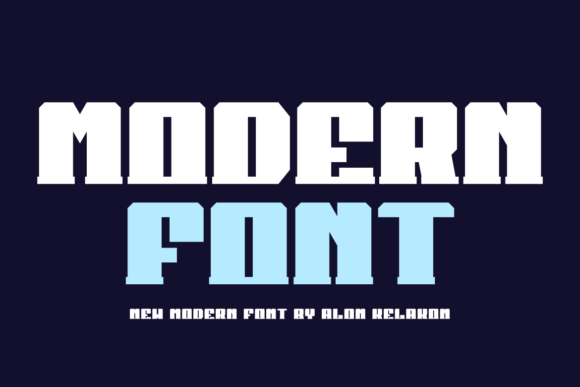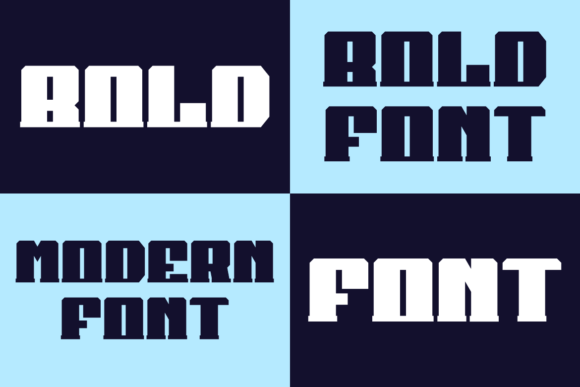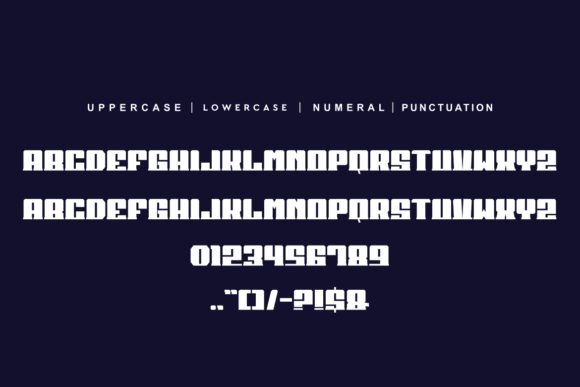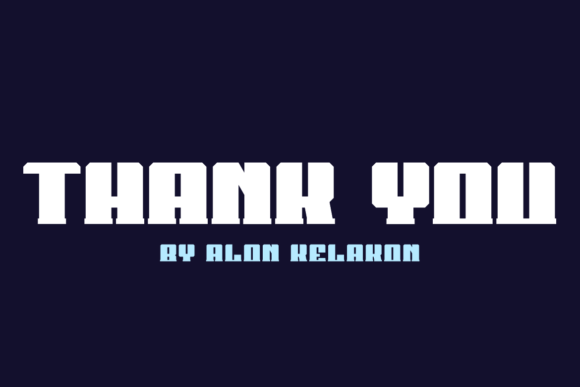
Unleash Your Creativity with Block Generic: The Ultimate Blocky Display Font
Are you a designer, craftsperson, or simply someone who loves to create? Look no further than Block Generic, a bold and striking display font that’s perfect for making a statement. With its strong, masculine character, Block Generic is ideal for headlines, gym posters, sports apparel, and any other project that requires a font with attitude.
The Power of Block Generic
Block Generic is more than just a font – it’s a design statement. Its blocky, rugged aesthetic is sure to grab attention and leave a lasting impression. Whether you’re creating a poster for a gym, designing a logo for a sports team, or simply looking for a font to add some edge to your craft project, Block Generic is the perfect choice.
Key Features of Block Generic
- Strong, masculine character: Block Generic exudes confidence and energy, making it perfect for projects that require a bold and daring aesthetic.
- Blocky display font: The font’s blocky design makes it highly legible, even at large sizes, ensuring that your message gets across loud and clear.
- Perfect for headlines and titles: Block Generic is designed to make a statement, making it ideal for headlines, titles, and other applications where you want to grab attention.
- Great for gym posters and sports apparel: The font’s strong, athletic aesthetic makes it a natural fit for gym posters, sports apparel, and other projects that require a bold and dynamic look.
Why Choose Block Generic?
With so many fonts to choose from, why should you choose Block Generic? Here are just a few reasons:
- Uniqueness: Block Generic stands out from the crowd, offering a fresh and unique alternative to more traditional fonts.
- Versatility: The font’s bold, blocky design makes it suitable for a wide range of projects, from posters and flyers to logos and apparel.
- Easy to read: Despite its bold design, Block Generic is highly legible, ensuring that your message gets across clearly and effectively.
How to Use Block Generic
Block Generic is easy to use and can be incorporated into a wide range of projects. Here are a few ideas to get you started:
- Headlines and titles: Use Block Generic to create bold, eye-catching headlines and titles that grab attention and make a statement.
- Gym posters: Create bold and dynamic gym posters that motivate and inspire with Block Generic.
- Sports apparel: Use Block Generic to create bold and stylish sports apparel that stands out from the crowd.
- Logos and branding: Incorporate Block Generic into your logo or branding to add a bold and dynamic touch.
Here are a few tips and tricks to help you get the most out of Block Generic:
- Experiment with different sizes: Block Generic looks great at large sizes, but don’t be afraid to experiment with smaller sizes to add some subtle texture to your design.
- Combine with other fonts: Block Generic pairs well with a wide range of fonts, so don’t be afraid to experiment with different combinations to create a unique look.
- Use it sparingly: While Block Generic is a bold and striking font, it can be overwhelming if overused. Use it sparingly to add emphasis and create visual interest.